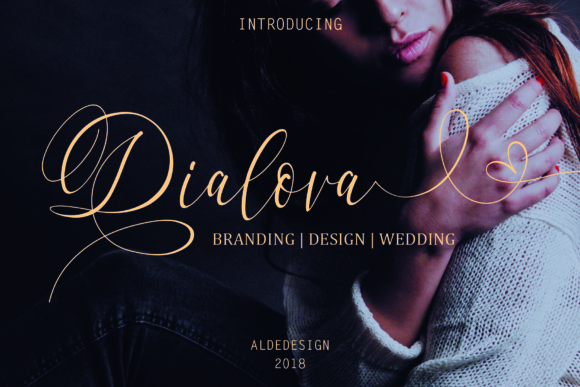
Introducing Dialova Font: Elevate Your Designs with Elegance
In the world of typography, few fonts manage to capture the essence of elegance and sophistication as effortlessly as the Dialova Font. This stunning calligraphy script font is designed to add a touch of luxury to any design project, making it a must-have for designers and crafters looking to elevate their work. With its gorgeous swashes, titling options, and alternates, Dialova is not just a font – it’s an experience.
The Beauty of Dialova
The Dialova Font is a masterpiece of modern calligraphy, boasting fluid strokes and intricate details that make it stand out in any design. Its stylish appearance is perfect for a variety of projects, from wedding invitations and branding materials to packaging and digital content. The font’s elegant swashes and alternates offer endless possibilities for customization, allowing designers to create unique and personalized designs that capture the essence of their brand or message.
Key Features of Dialova Font
- Stylish Calligraphy Script: Dialova’s beautiful calligraphy style adds a touch of sophistication and elegance to any design.
- Gorgeous Swashes: The font comes with stunning swashes that can be used to add a decorative touch to your designs.
- Titling Options: Dialova offers titling options, allowing you to create stunning headings and titles that command attention.
- Alternates: With a range of alternate characters, you can easily customize your text to create a unique look that sets your design apart.
Who Can Benefit from Dialova Font?
Dialova Font is a versatile tool that can benefit a wide range of designers and crafters, including:
- Graphic Designers: Looking to add a touch of elegance to their branding and advertising materials.
- Wedding Planners and Stylists: Seeking unique and beautiful fonts for wedding invitations, programs, and decor.
- Packaging Designers: Aiming to create luxurious and eye-catching packaging that stands out on store shelves.
- Digital Content Creators: Wanting to add a sophisticated touch to their blog posts, social media graphics, and video content.
- Crafters and Makers: Looking for a beautiful font to use in their DIY projects, such as handmade cards, art, and jewelry.
| Font Name | Dialova Font |
| Author | aldedesign |
Dialova Font is a game-changer for designers and crafters looking to add a touch of elegance and sophistication to their work. With its stunning calligraphy style, gorgeous swashes, and easy-to-use features, it’s the perfect tool for creating beautiful and unique designs. Whether you’re working on a branding project, wedding invitation, or DIY craft, Dialova Font is sure to elevate your designs and leave a lasting impression.